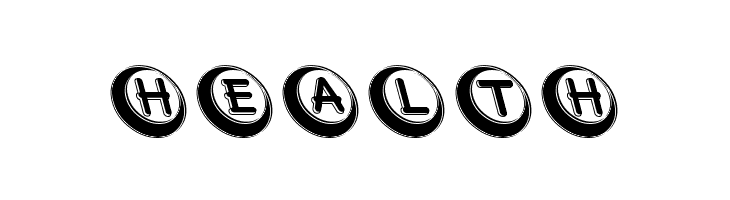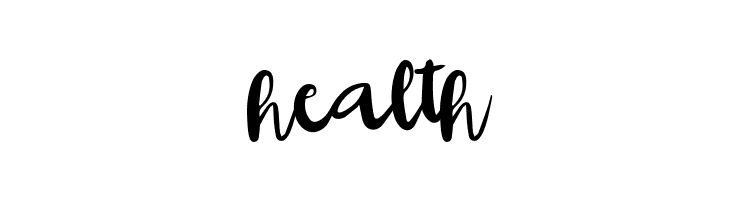
A futuristic, geometric font with interconnected lines and circles.
A bold geometric font with Art Deco influences, featuring tall, narrow letters and consistent stroke widths.
A bold, geometric font with Art Deco influences and clean lines.
A geometric, art deco-inspired font with bold lines and angular curves.
A playful, bold font with irregular, hand-drawn letterforms.
A bold, retro-inspired font with starburst effects and outlined characters.
A dripping, grotesque font ideal for spooky themes.
A dripping, horror-themed font with a melting appearance.
A classic serif font with high contrast and bold strokes, ideal for formal use.
A bold, modern font with geometric influences and consistent thickness.
A bold, italicized font with angular lines and a modern, dynamic style.
A modern, italicized font with sleek, consistent strokes and a dynamic appearance.
A playful, hand-drawn font with irregular strokes and quirky serifs.
A bold, distressed font with irregular edges and a gritty aesthetic.
A bold, grunge-style font with a playful, textured design.
An ornate and decorative font with intricate flourishes and embellishments.
A pictorial font using gun and ammunition silhouettes as glyphs.
A bold, geometric font with a 3D shadow effect, ideal for modern and industrial designs.
A bold, industrial-style font with strong, blocky characters.
A bold, geometric font with a modern and impactful style.
A bold, 3D font with a strong, impactful presence and shadow effect.
A bold, 3D font with a modern and playful style.
A traditional Blackletter font with sharp, angular lines and a dense appearance.